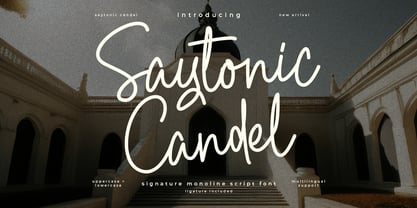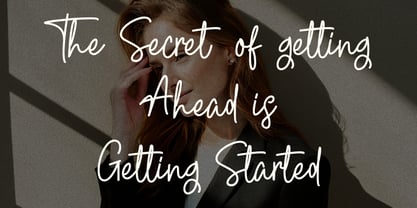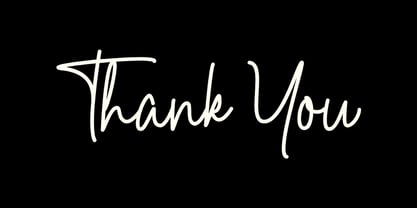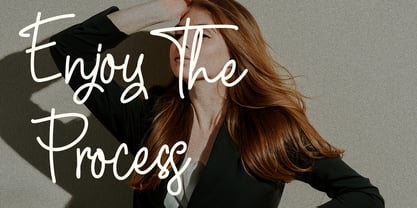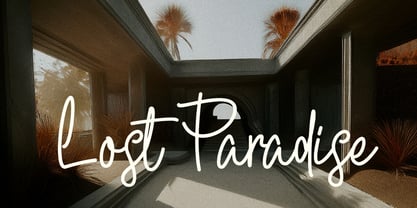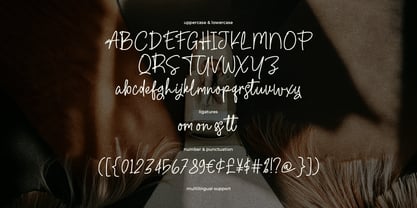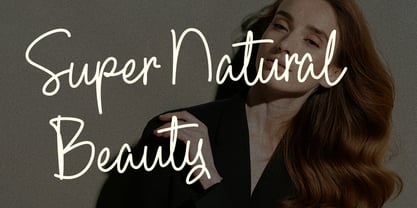
Saytonic Candel
Die Schriftfamilie Saytonic Candel wurde von Gilang Maulana entworfen und von Maulana Creative veröffentlicht. Saytonic Candel enthält 1 Stile. Mehr über diese Familie
Saytonic Candel is a fluid, modern monoline script font designed to mimic natural handwriting and casual signature styles. Featuring a consistent line weight and an organic flow, this typeface captures an authentic, effortless aesthetic. It comes fully equipped with uppercase and lowercase letters, numerals, essential punctuation, and select ligatures that seamlessly link characters for a true hand-drawn effect.
With its clean yet expressive anatomy, this font is highly versatile and ideal for branding projects, elegant logo designs, social media graphics, photographic overlays, editorial layouts, wedding invitations, and stylish digital content. Its built-in multilingual support ensures smooth adaptation across various international design projects, offering a sophisticated touch wherever a personal, handwritten look is desired.